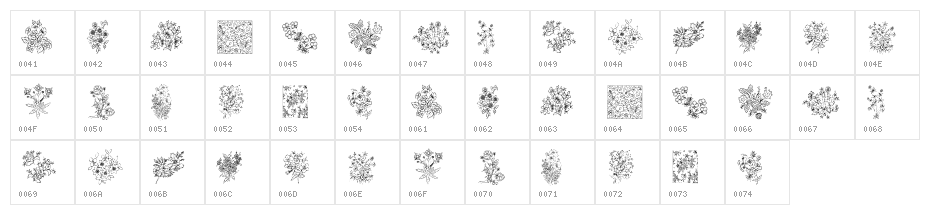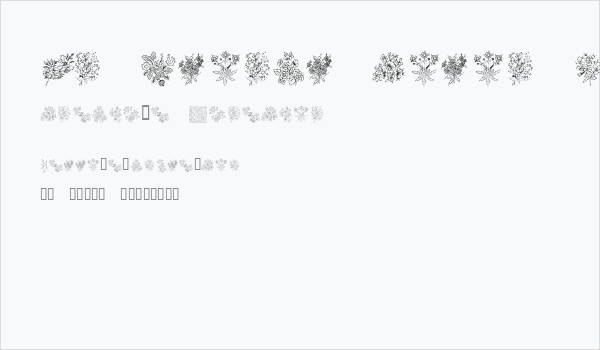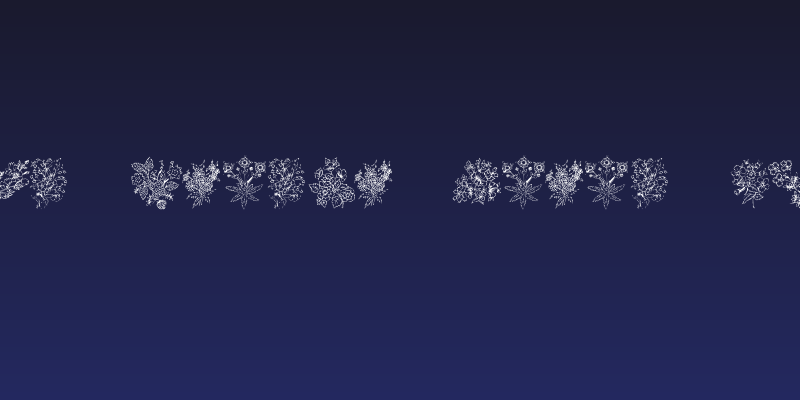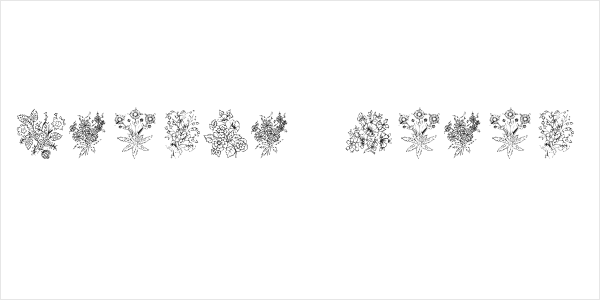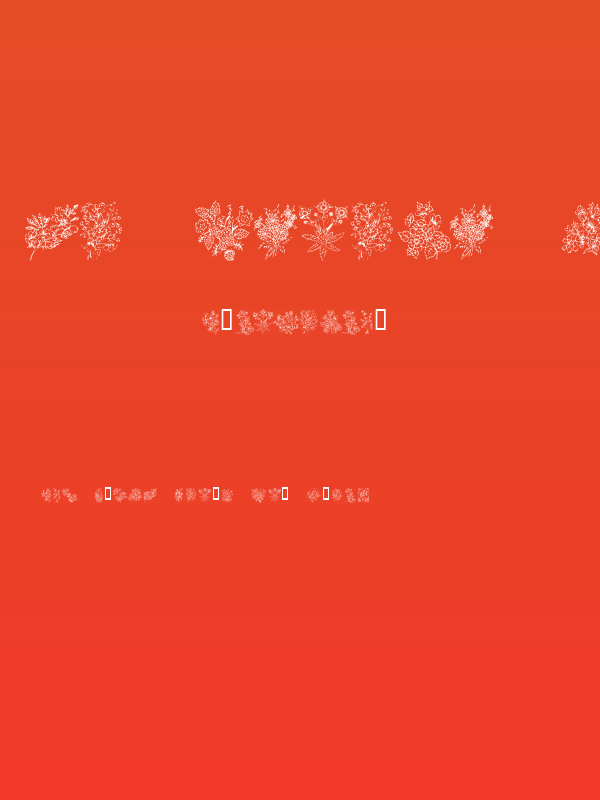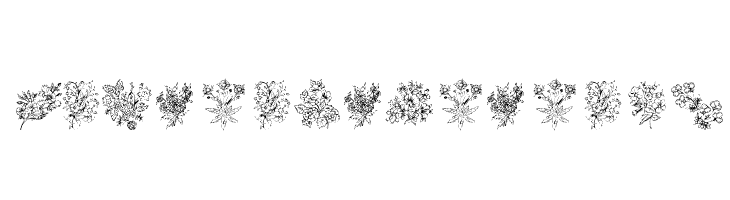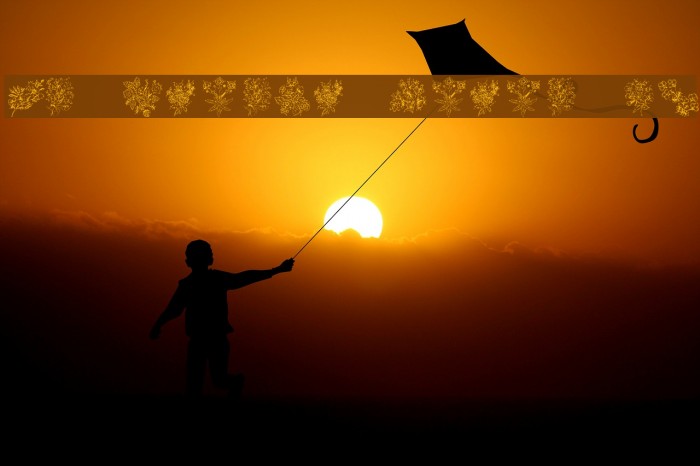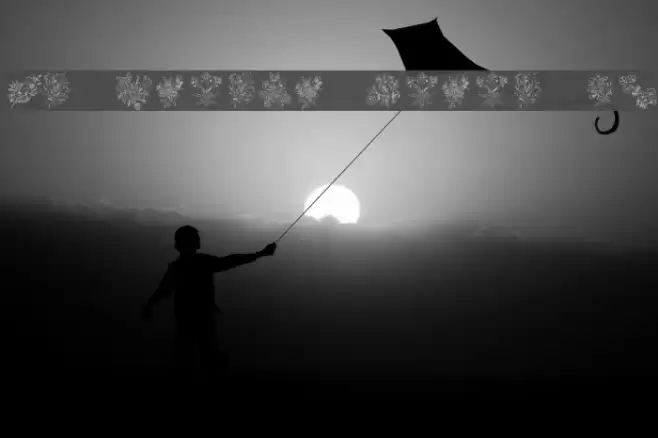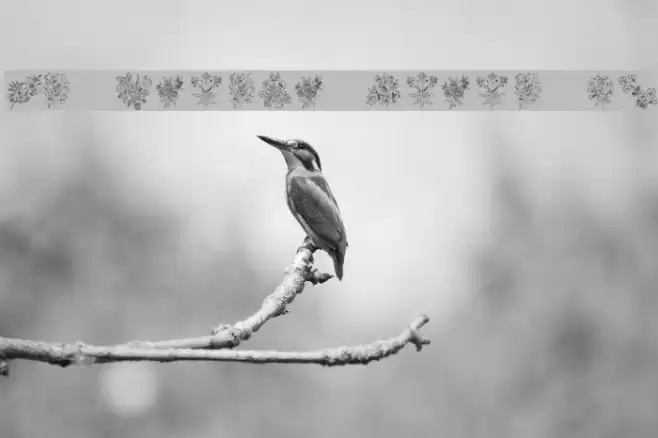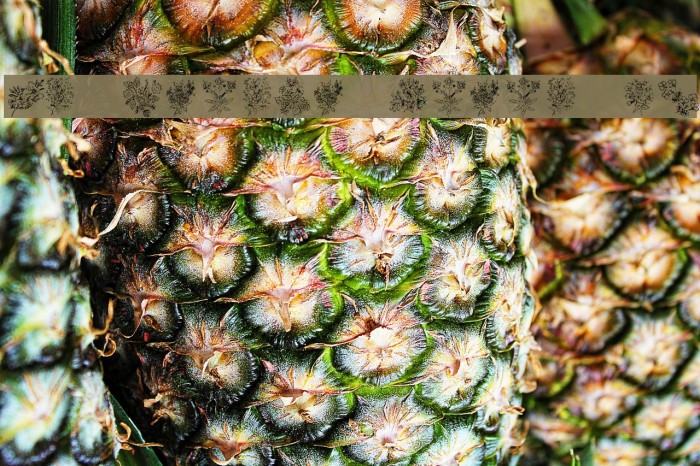
KR Floral Color Me Font
KR Floral Color Me Description
A decorative dingbat font featuring detailed, hand-drawn floral illustrations in black and white. Each character is represented by a unique flower or botanical motif, with intricate linework and a vintage, coloring-book style. The glyphs are not traditional alphanumeric characters but rather ornamental images.
| Overall Style | Decorative, Vintage, Hand-drawn |
| Use Case | Decorative elements, Illustrations, Borders, Craft projects |
| Proposed Projects | Adult coloring books, wedding invitations, scrapbooking, decorative borders, botanical-themed designs, craft projects. |